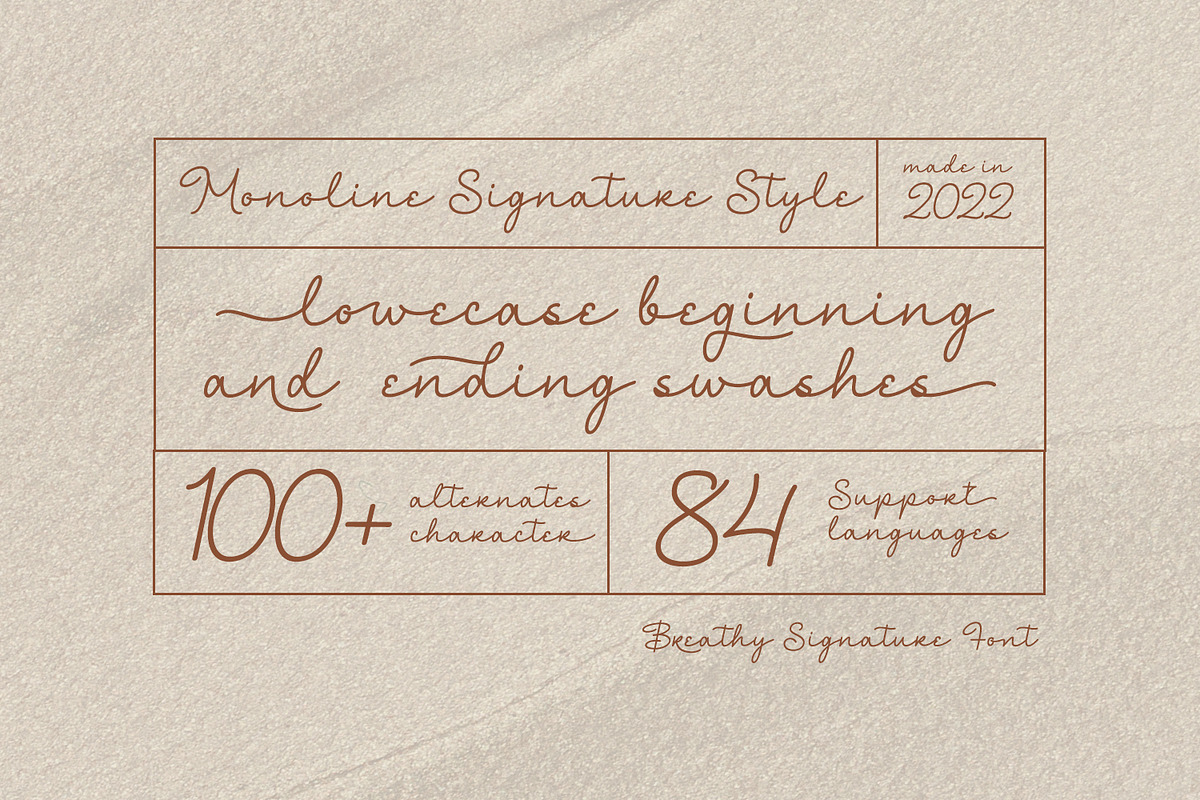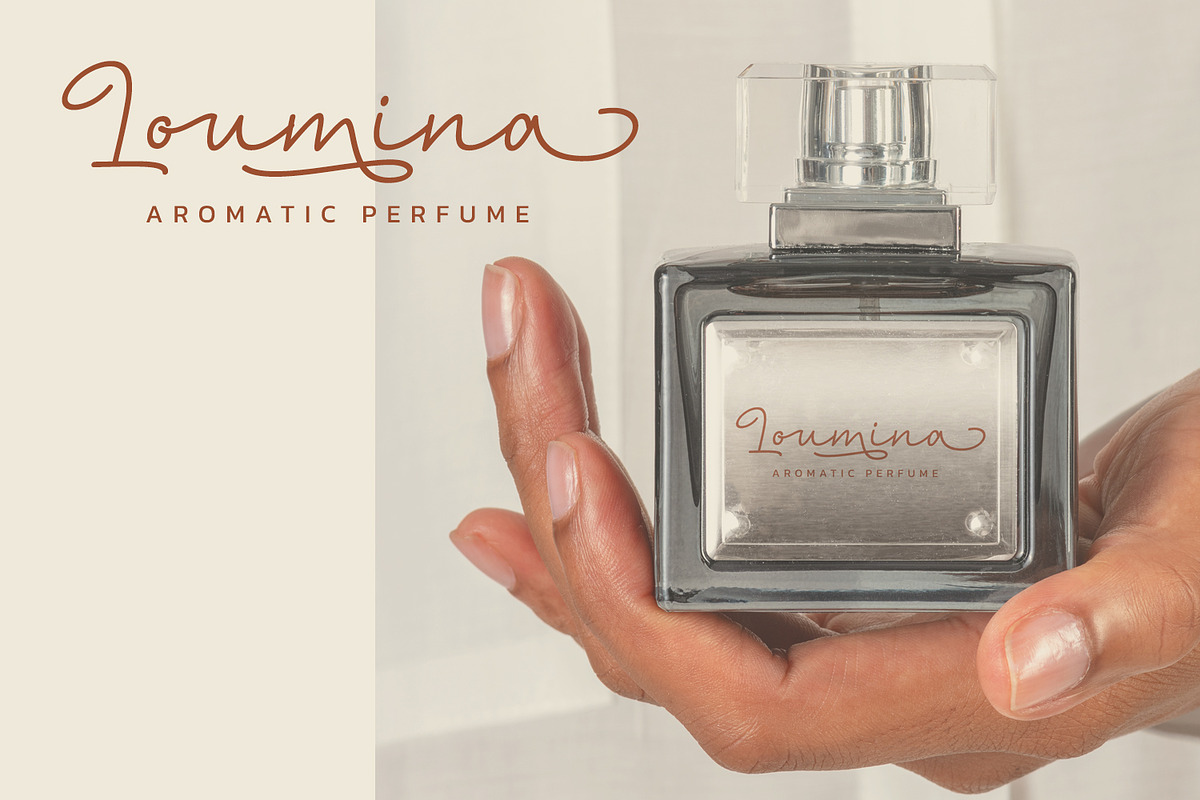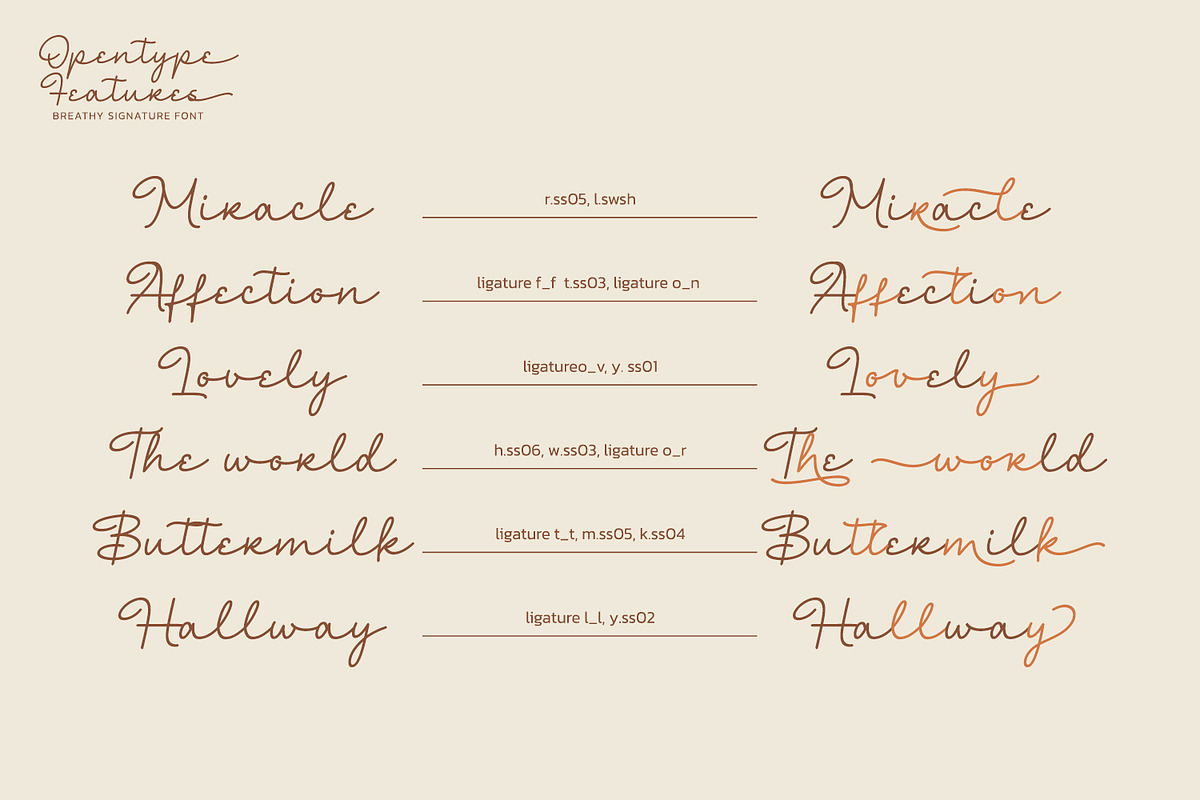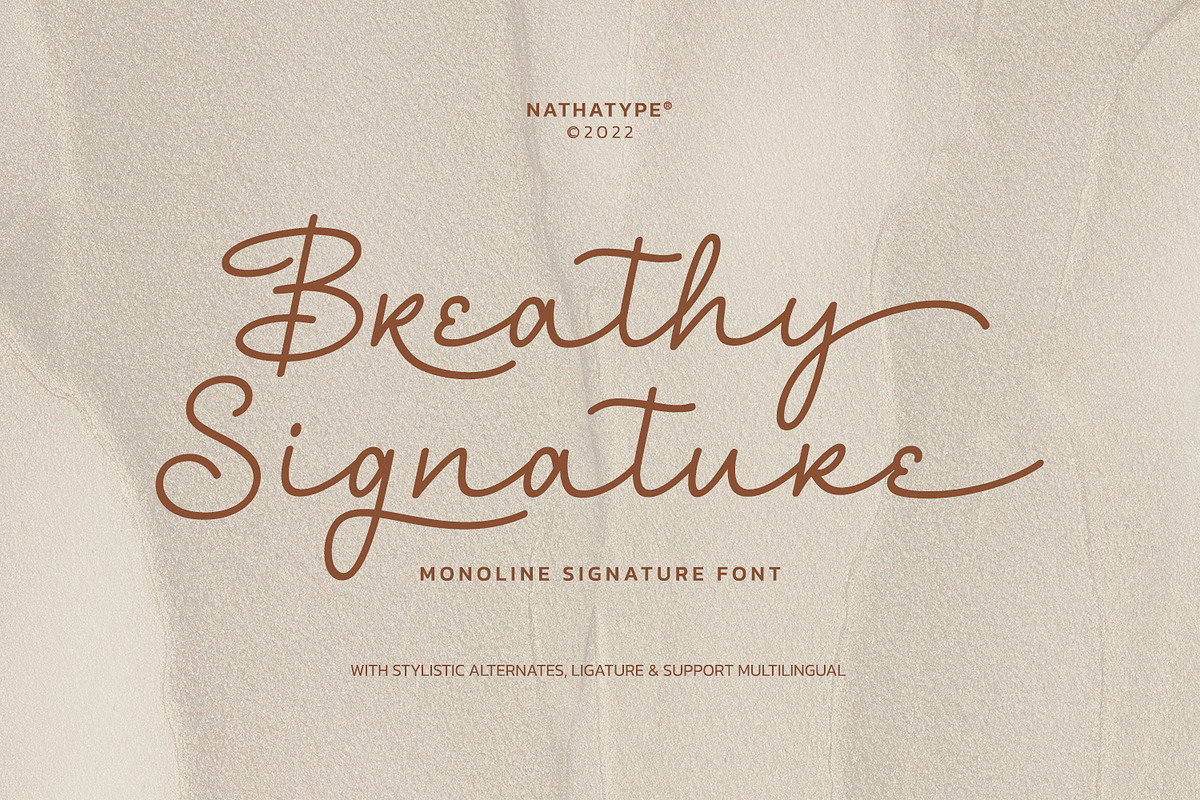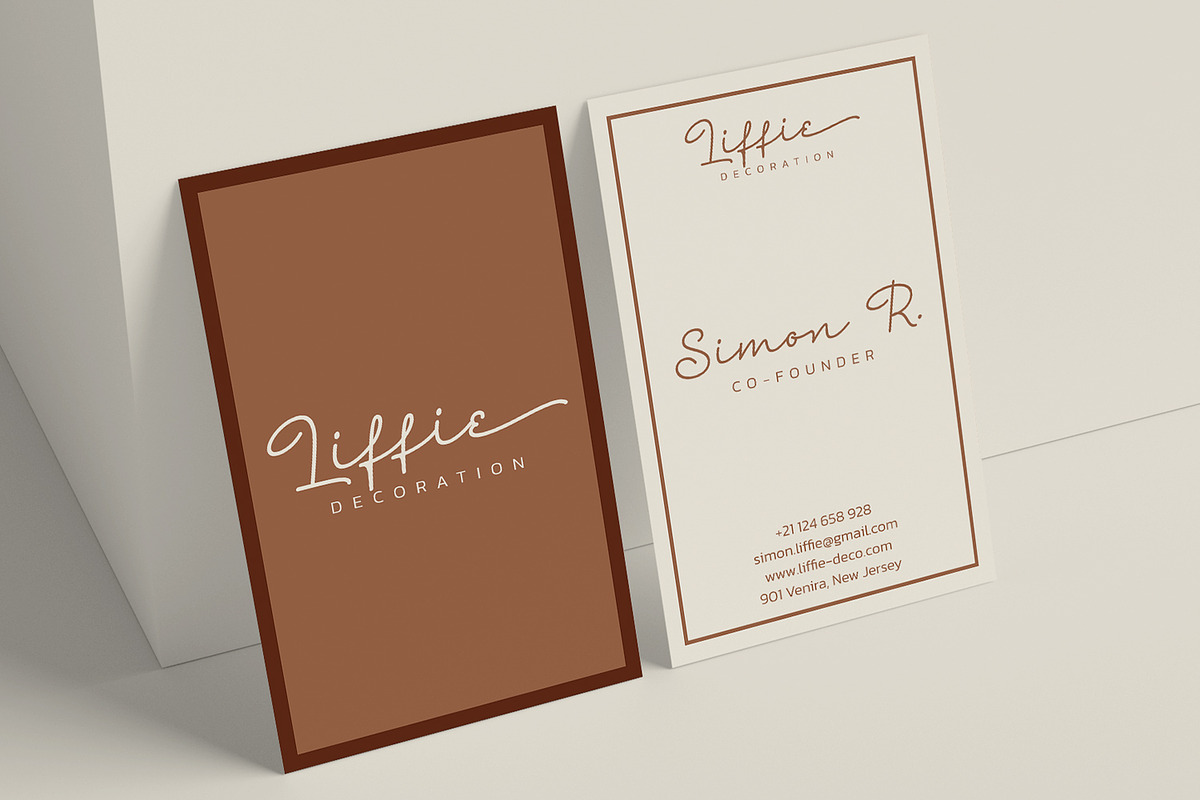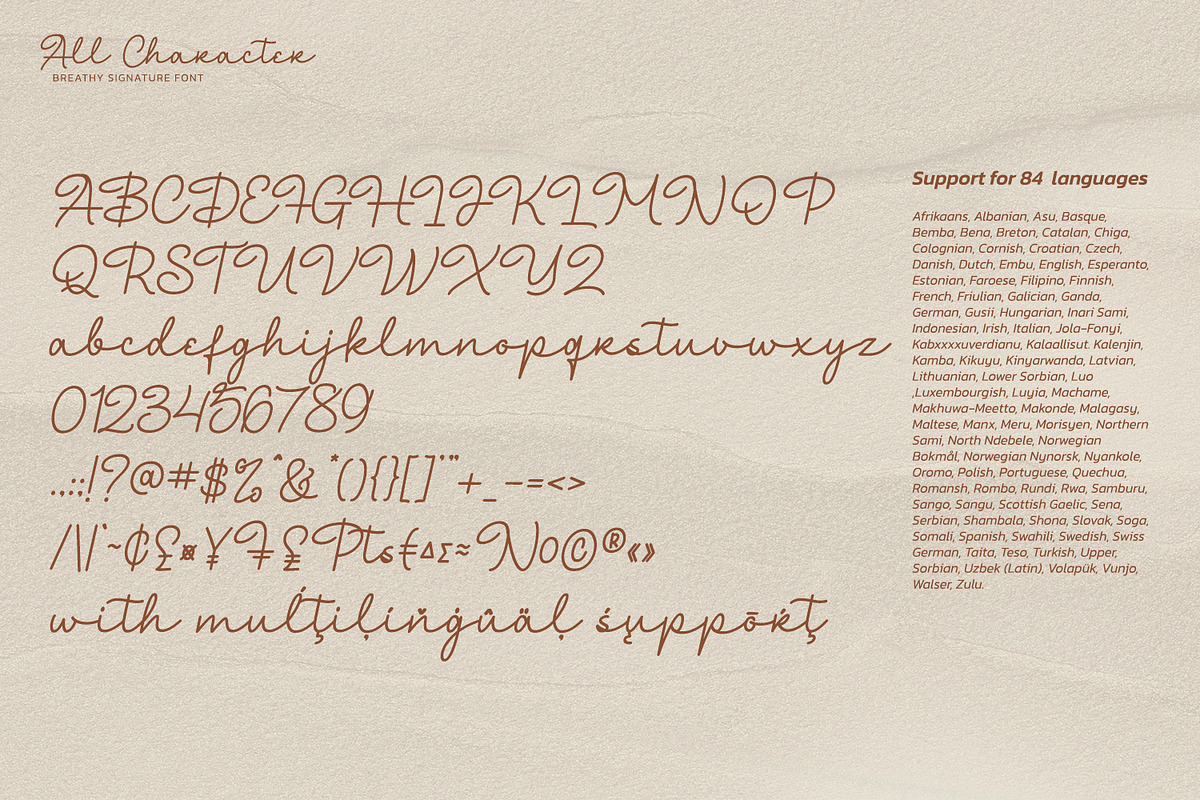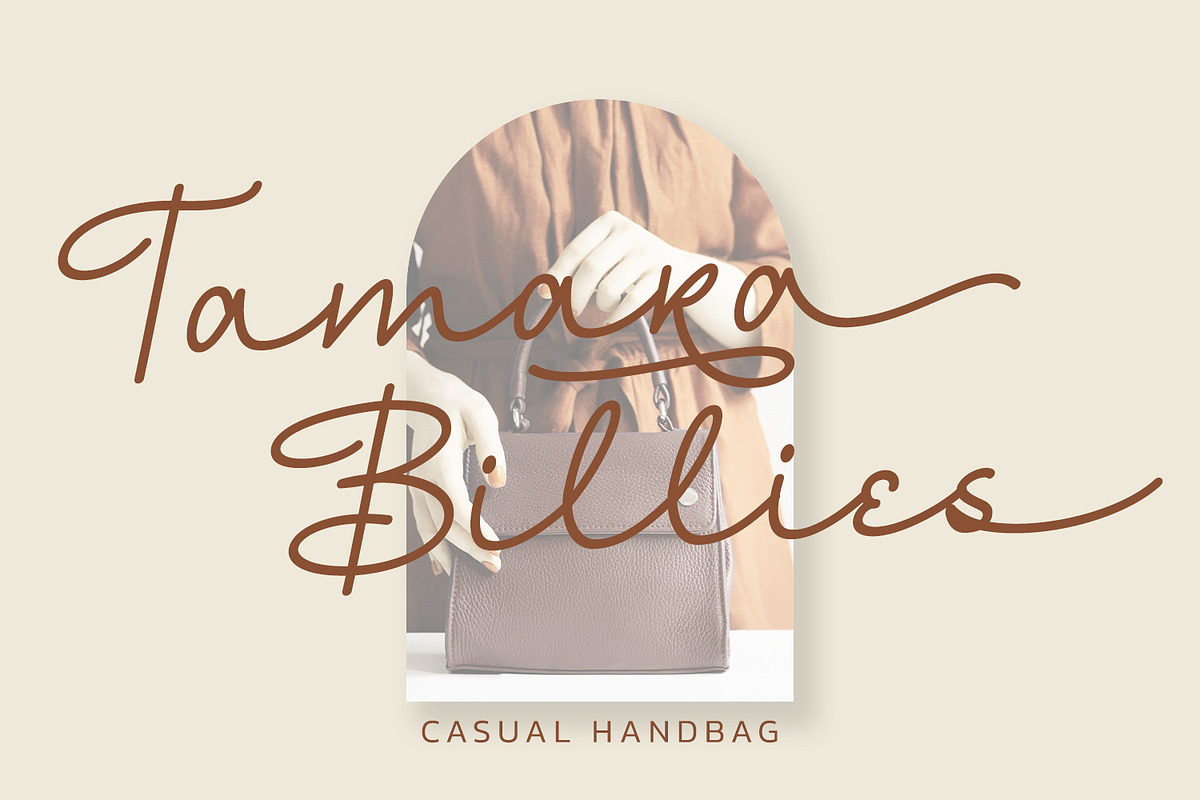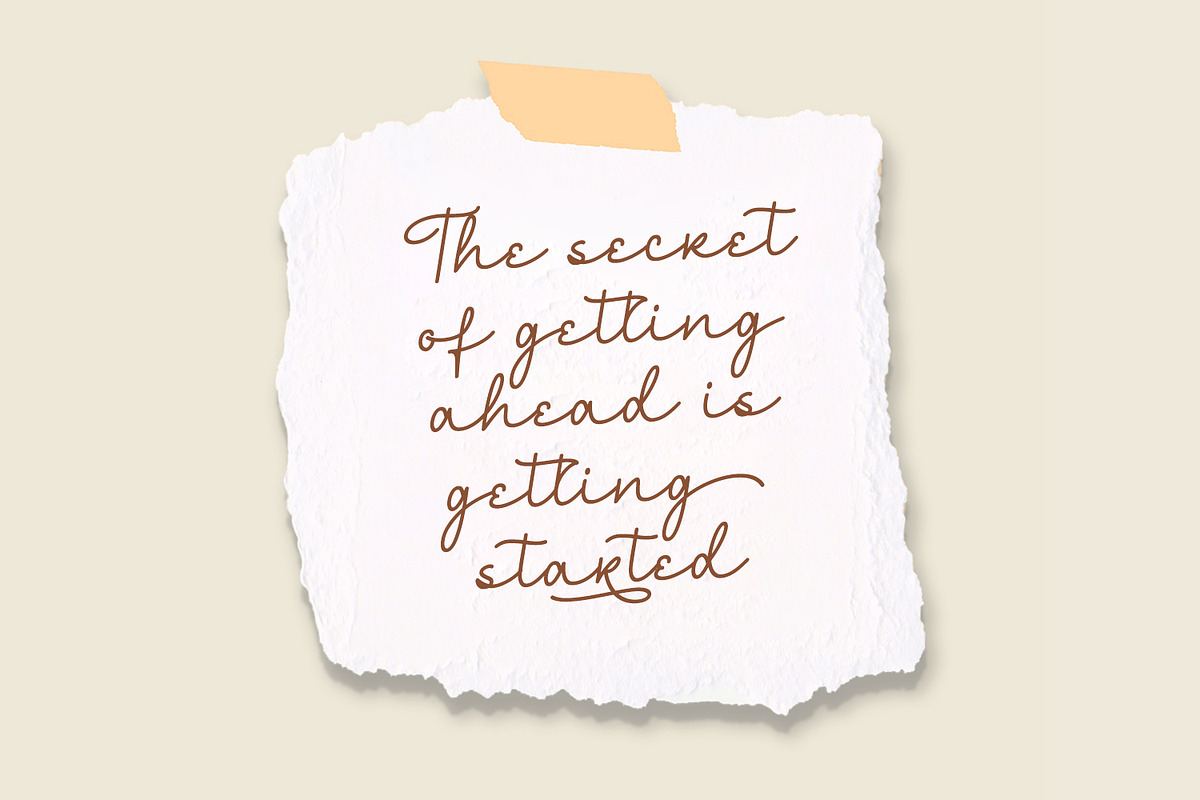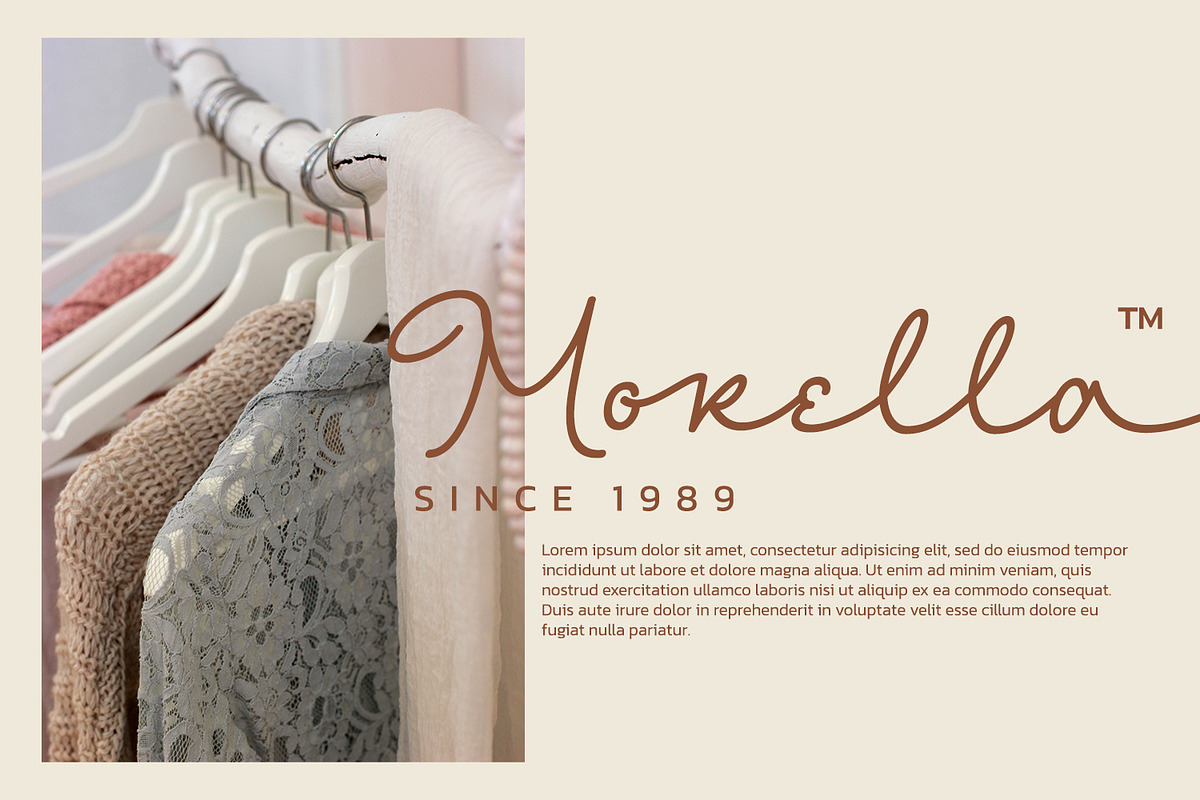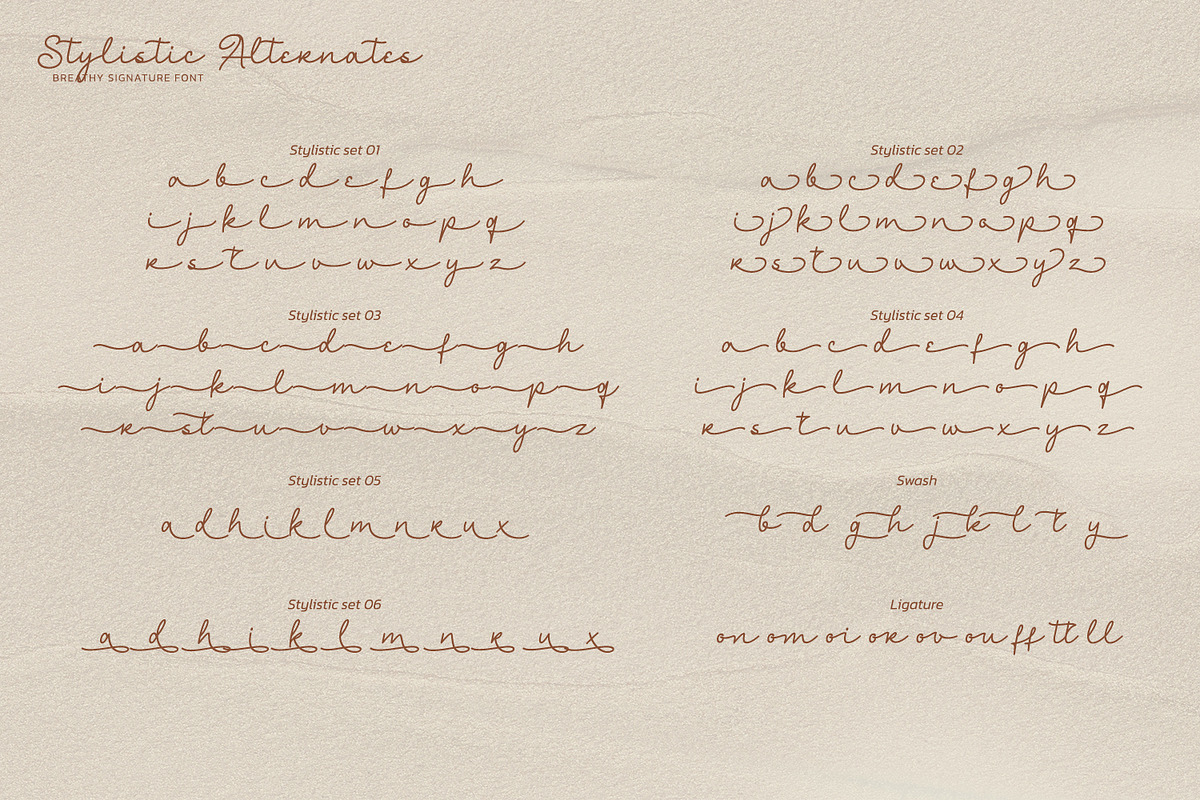
Breathy Signature
Ready to meet an epic font? What you looking for is all in here.
Breathy Signature is a font designed with actual handwriting. This font generates clean, elegant and trustworthy appearance. As our commitment to support your brand globally recognized, we always come with multilingual options.
- Stylistic Sets
It is can used for branding, logos, social media quotes, invitations, stickers, posters, vintage designs, wall art, merchandise, social media, and many more. Get more inspiration by seeing the preview.